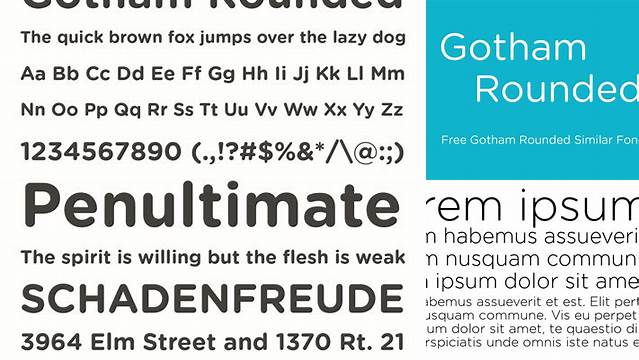
Gotham Rounded Light Font: Free Download Guide
Are you looking for a sleek and modern font to elevate your design projects? Look no further! The Gotham Rounded Light font is a fantastic choice, offering a contemporary aesthetic with a friendly, approachable feel. This guide dives deep into everything you need to know about this popular typeface, including where to find it for free (legally!), its best uses, and why it's such a beloved option for designers.
What Makes Gotham Rounded Light So Special?
Gotham Rounded Light boasts a clean, geometric design with rounded terminals, giving it a softer, more inviting appearance than its sharper-edged counterparts. This makes it incredibly versatile, suitable for a wide array of applications, from branding and advertising to web design and editorial layouts.
The appeal of Gotham Rounded Light lies in its simplicity and readability. Its even strokes and generous letter spacing ensure clarity even at smaller sizes, making it a great option for body text as well as headlines. The rounded corners add a touch of warmth and personality, preventing the font from feeling too sterile or corporate. Think of it as the friendly, approachable cousin of more serious sans-serif fonts like Helvetica or Arial.
Its clean lines and geometric structure provide a modern, professional feel, while the rounded edges soften the overall look, making it more inviting and approachable. This balance is what makes Gotham Rounded Light such a versatile choice for various design applications. It's equally at home in a corporate branding campaign as it is in a playful website design. This versatility is a key factor in its widespread popularity among designers.
Furthermore, Gotham Rounded Light's legibility is exceptional, even in small sizes or on screens. This is crucial for ensuring that your message is clear and easily readable, regardless of the medium. The consistent letterforms and ample spacing contribute to a comfortable reading experience, making it a reliable choice for body text as well as headlines. Whether you're designing a website, a brochure, or a presentation, Gotham Rounded Light can help you communicate your message effectively.
Its design is both modern and approachable, making it a favorite among designers for branding, websites, and print materials. When you choose a font, you're choosing a voice. Gotham Rounded Light speaks with clarity, confidence, and a hint of friendliness. It's a font that says, "We're professional, but we're also approachable." This makes it ideal for brands that want to project a sense of trustworthiness and reliability while still maintaining a human touch. Think about companies in the tech, finance, or healthcare industries – sectors where conveying trust and expertise is paramount. Gotham Rounded Light can be a powerful tool in their branding arsenal.
Exploring font alternatives is another great option. Many excellent free and open-source fonts capture the essence of Gotham Rounded Light. Fonts like Montserrat, Nunito Sans, and Lato are excellent substitutes, offering a similar clean, geometric aesthetic with rounded terminals. These fonts are readily available on platforms like Google Fonts, making them easily accessible for a wide range of projects. Using font alternatives is a fantastic way to achieve a similar look and feel without incurring the cost of a commercial license. It also opens up a world of creative possibilities, as you might discover a new favorite font in the process.
Google Fonts is a fantastic resource for free, high-quality fonts that closely resemble Gotham Rounded Light. These alternatives often provide the same clean and modern aesthetic without the hefty price tag. Consider fonts like Montserrat, Nunito Sans, or Lato. These are all excellent options that share the geometric sans-serif characteristics of Gotham Rounded Light, with rounded terminals that soften the overall appearance. Google Fonts is a treasure trove for designers, offering a vast library of typefaces that are free to use for both personal and commercial projects. This makes it an invaluable resource for anyone looking to create professional-looking designs without breaking the bank.
Websites offering font trials or limited-time free licenses might also exist, but always carefully review the terms of use to ensure compliance. Some foundries offer trial versions of their fonts for a limited period, allowing you to test them out before committing to a purchase. This can be a great way to see if Gotham Rounded Light is the right fit for your project. However, it's crucial to understand the limitations of the trial license and ensure that you're not using the font beyond the permitted scope. Always double-check the licensing terms before using any font in a commercial project.
Gotham Rounded Light is a fantastic font choice for designers seeking a modern, approachable typeface. While it's a commercial font, exploring legal alternatives like Montserrat, Nunito Sans, and Lato can provide a similar aesthetic without the cost. Remember to always respect font licenses and support the designers who create these valuable tools! So go ahead, find your perfect font and let your creativity shine!